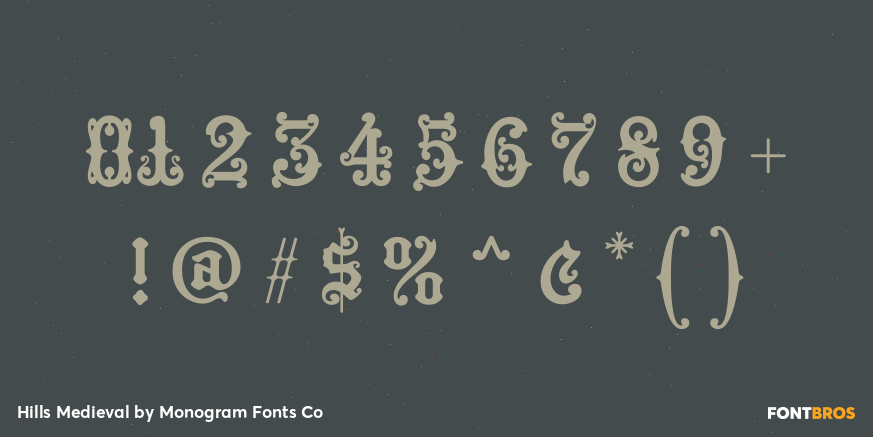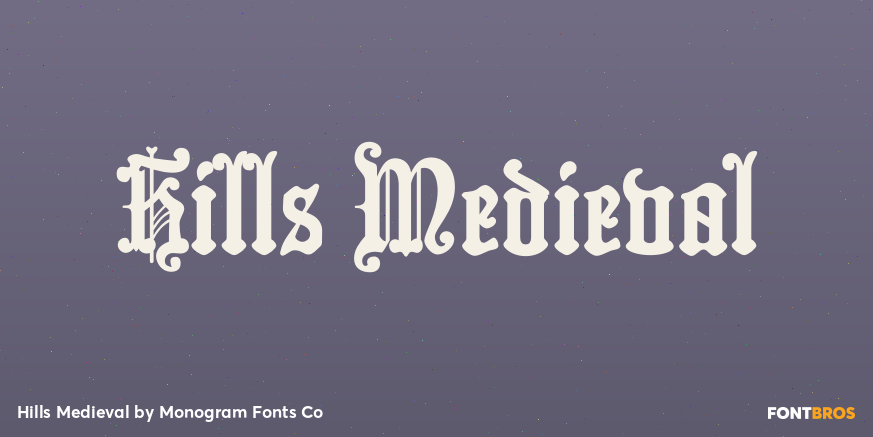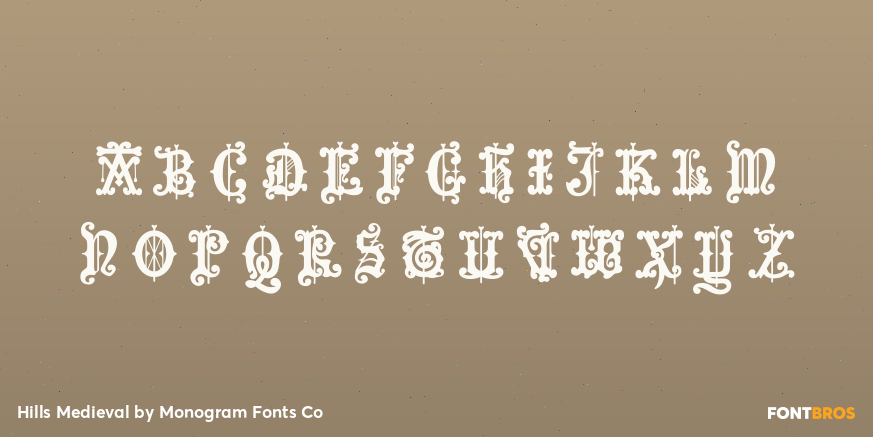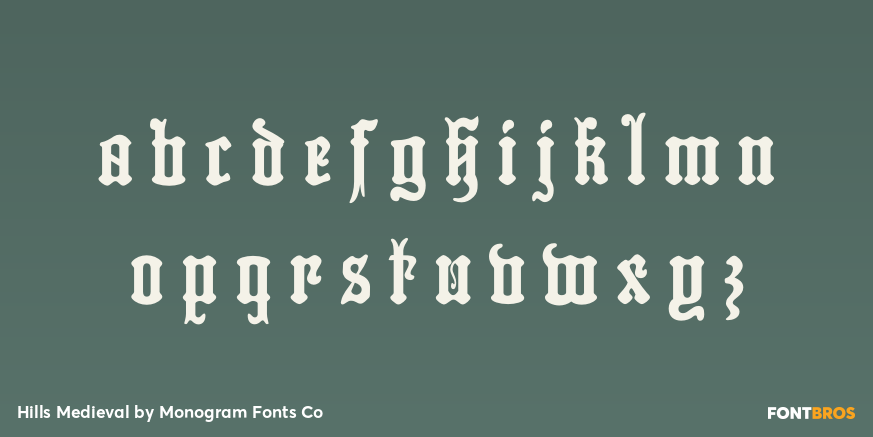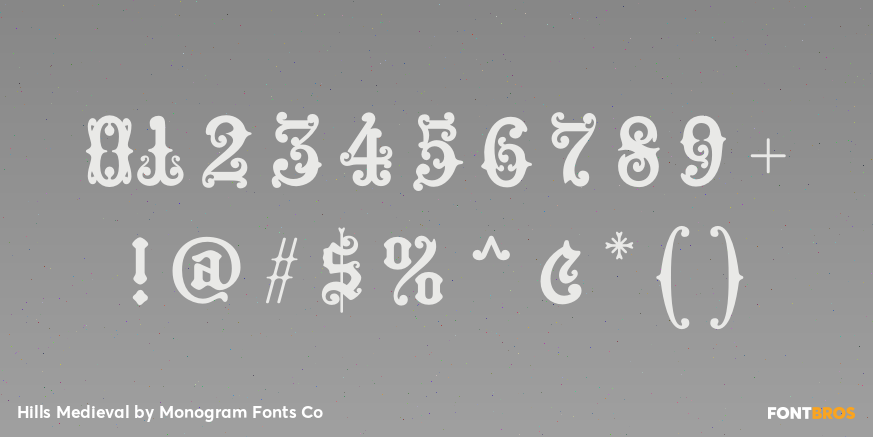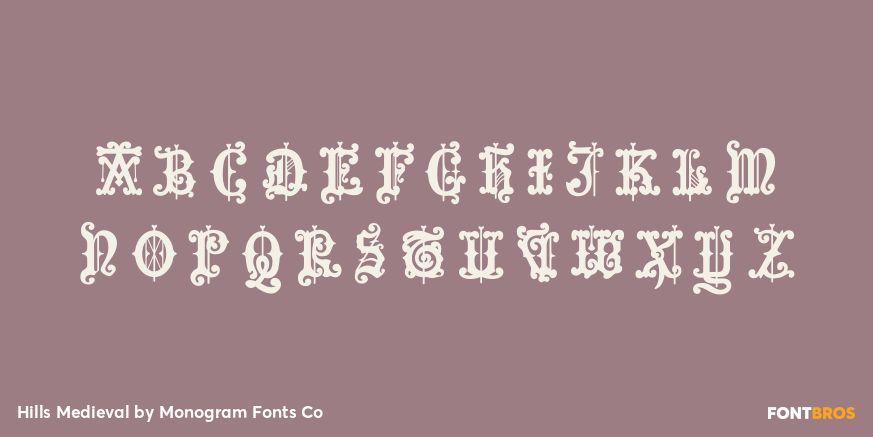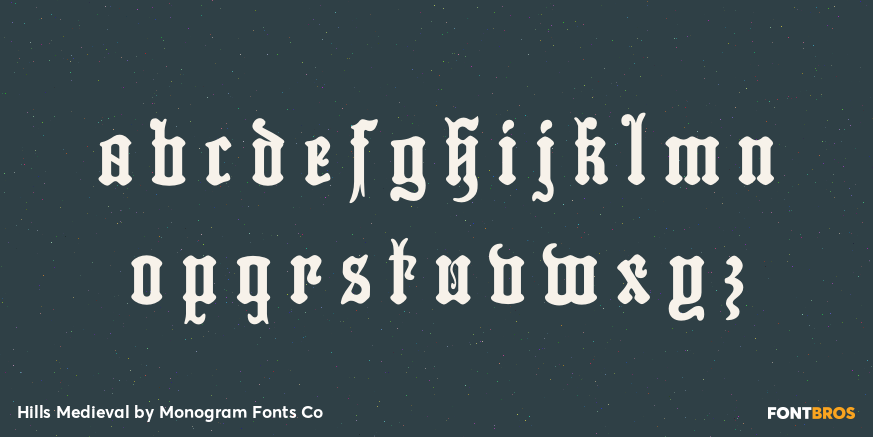
Hills Medieval
Font Family by Monogram Fonts Co
Hills Medieval was developed from a unique historical Blackletter type specimen in the 1882 Hills Manual of Social and Business Forms. From stylish and ornate capitals to a soft lowercase resembling bled ink, this period lettering style is a true eye-catcher. Because of some of the unique medieval letterforms, standardized letterforms were created as the default typeable letters while the true historical forms were setup as Stlitic Alternates. A sophisticated Blackletter for manuscripts and invitations alike.